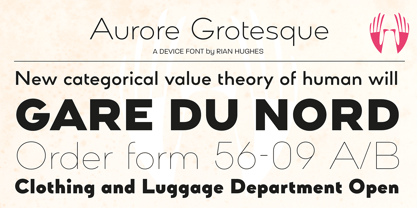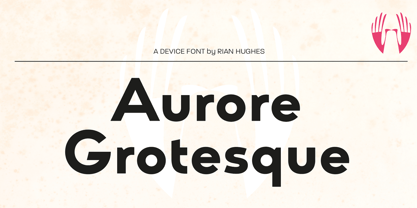
Aurore Grotesque
by Device
About the family
Aurore Grotesque is an elegant, robust geometric sans for both text and headline. It has a classic European heritage that references the posters of Cassandre and the modern sans of Paul Renner or Karl Gustav Möhring, but is entirely new and does not slavishly follow any historical reference. The low lower-case x-height gives it character and definition in running text, while the capitals-only Titling variant lends weight and punch to headlines. The full range of weights, each with matching italics, make it perfect for brochures, magazines, advertising, web, app and corporate uses. Includes lining, old-style and tabular numerals, arrows, stylised geometric alternates, and a full international character set.
Designers: Rian Hughes